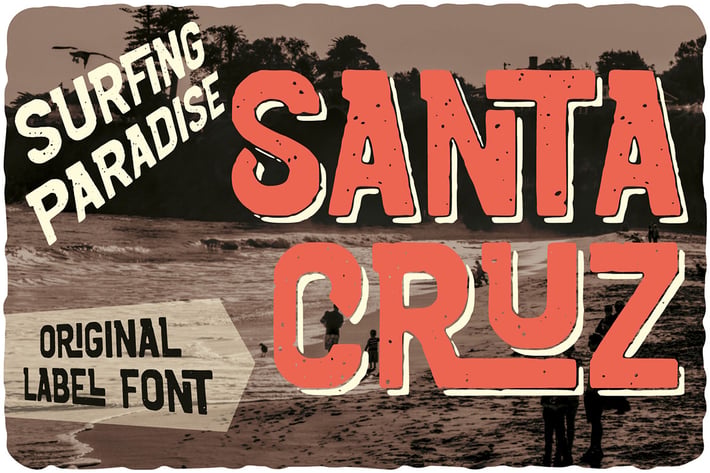
Unique, creative, vintage, bold, retro, game & layered label sans serif font. Comes with multilingual support & ligatures + 6 font versions - great for your new logo, monogram or branding project.
- 6 font versions
- Multilingual support & ligatures
- Great for retro or vintage style branding projects